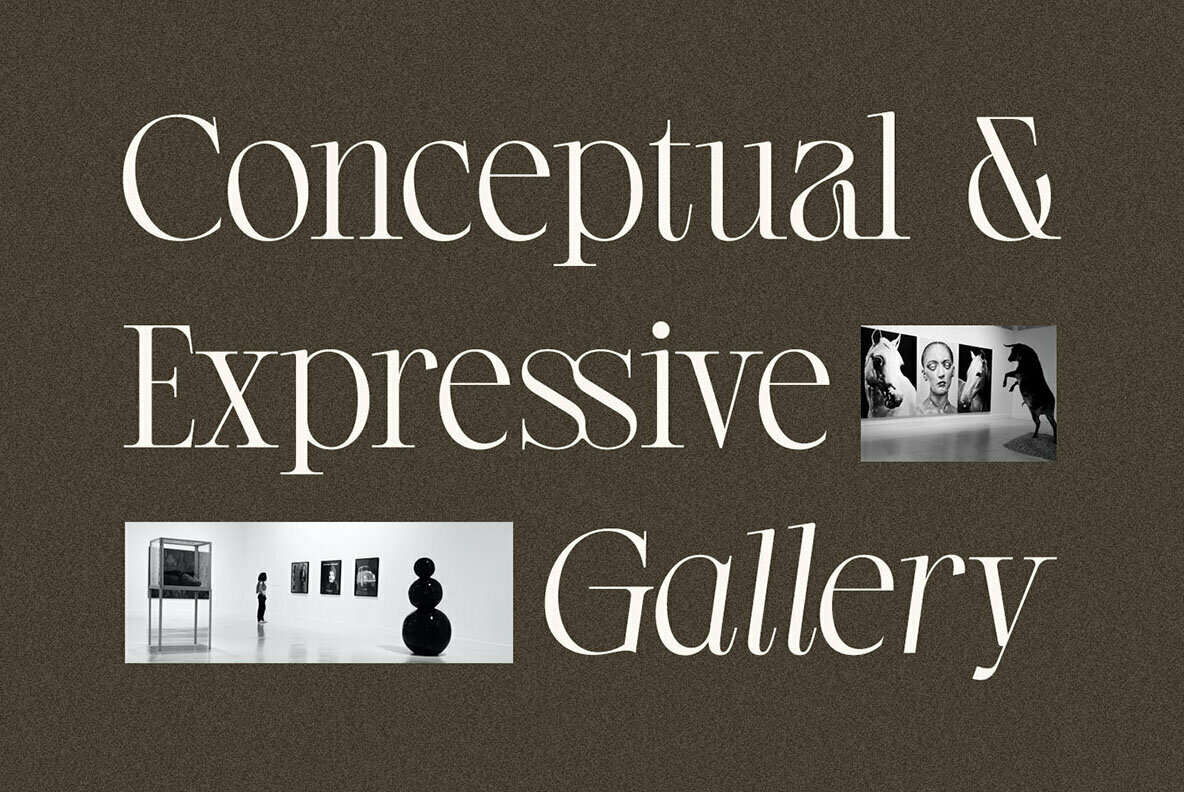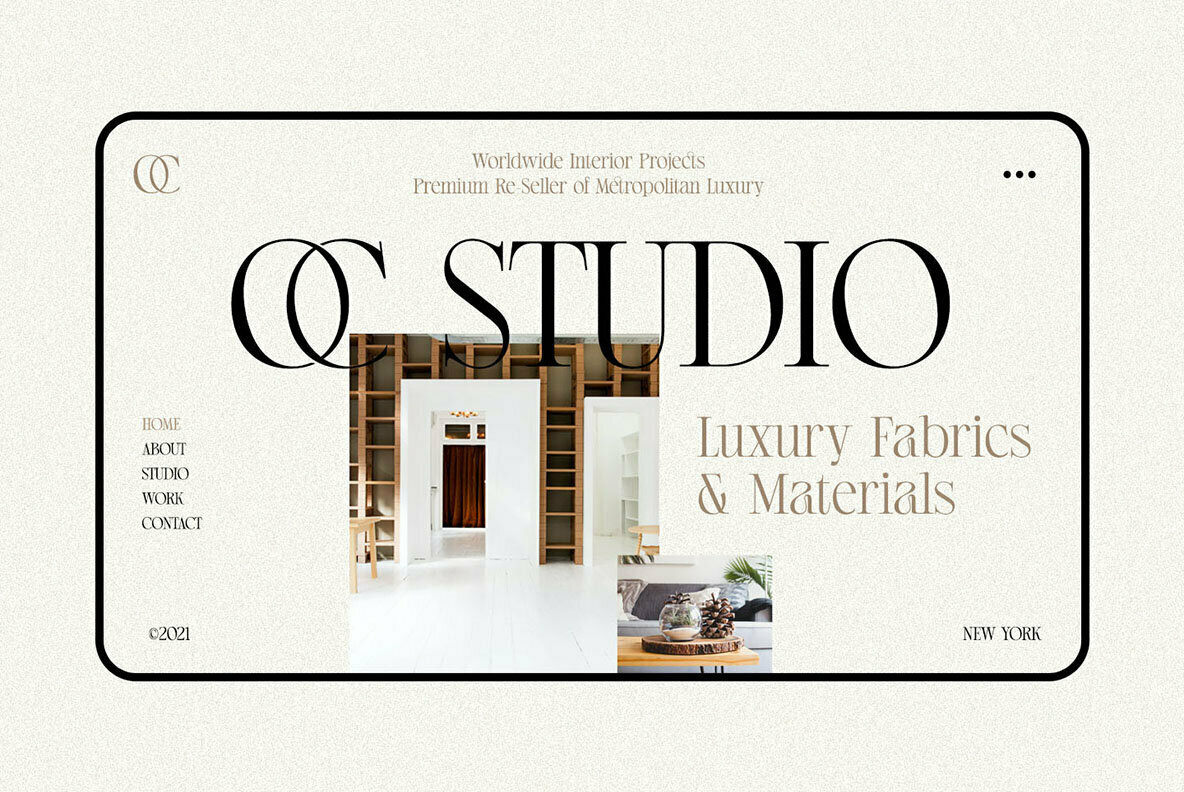
Regista Grande Font
Regista Grande is a sophisticated serif font, perfect for delivering timeless style across various design domains. Its sharp lines and elegant curves make it ideal for advertising, branding, logotypes, and editorial work. Available in both Regular and Italic styles, its versatility allows for innovative use in packaging and headline creation. Designed with the modern designer in mind, Regista Grande is encoded with Unicode PUA. This feature facilitates easy access to additional characters without the need for specialized software. Mac users can utilize Font Book, while Windows users can access these characters through Character Map. To truly benefit from its extensive glyph palette, it is recommended to use applications that support OpenType features and Glyphs panels. Regista Grande performs best in software like Adobe Illustrator, Adobe Photoshop CC, Adobe InDesign, or CorelDraw, offering a comprehensive typography experience.Regista Grande: Modern Elegance in Serif Design
Accessible and Flexible
Optimal OpenType Support